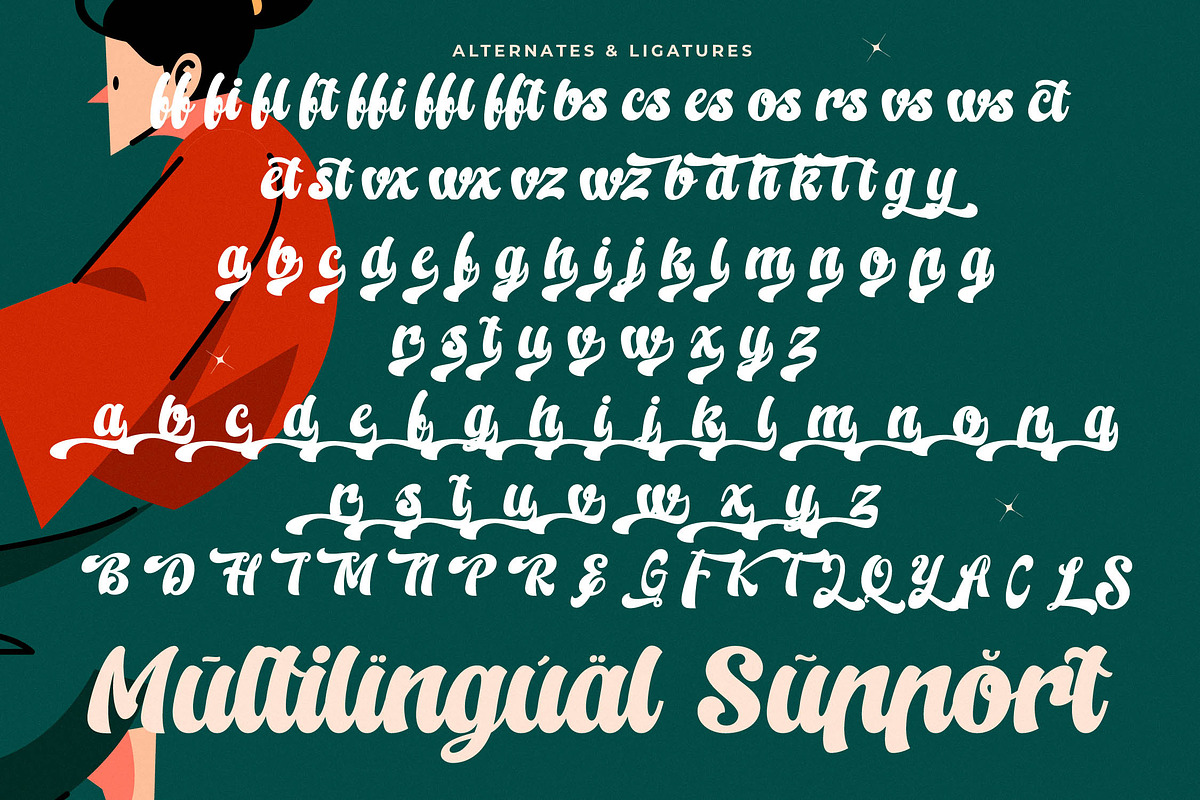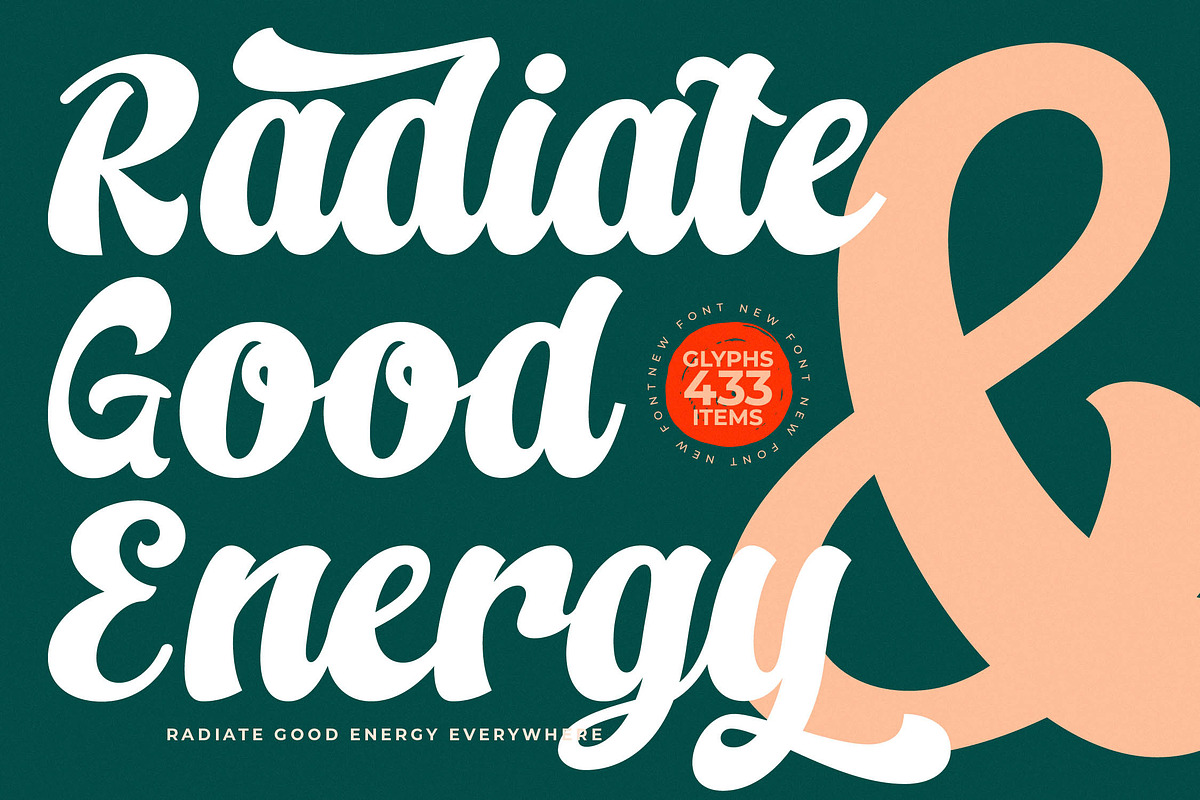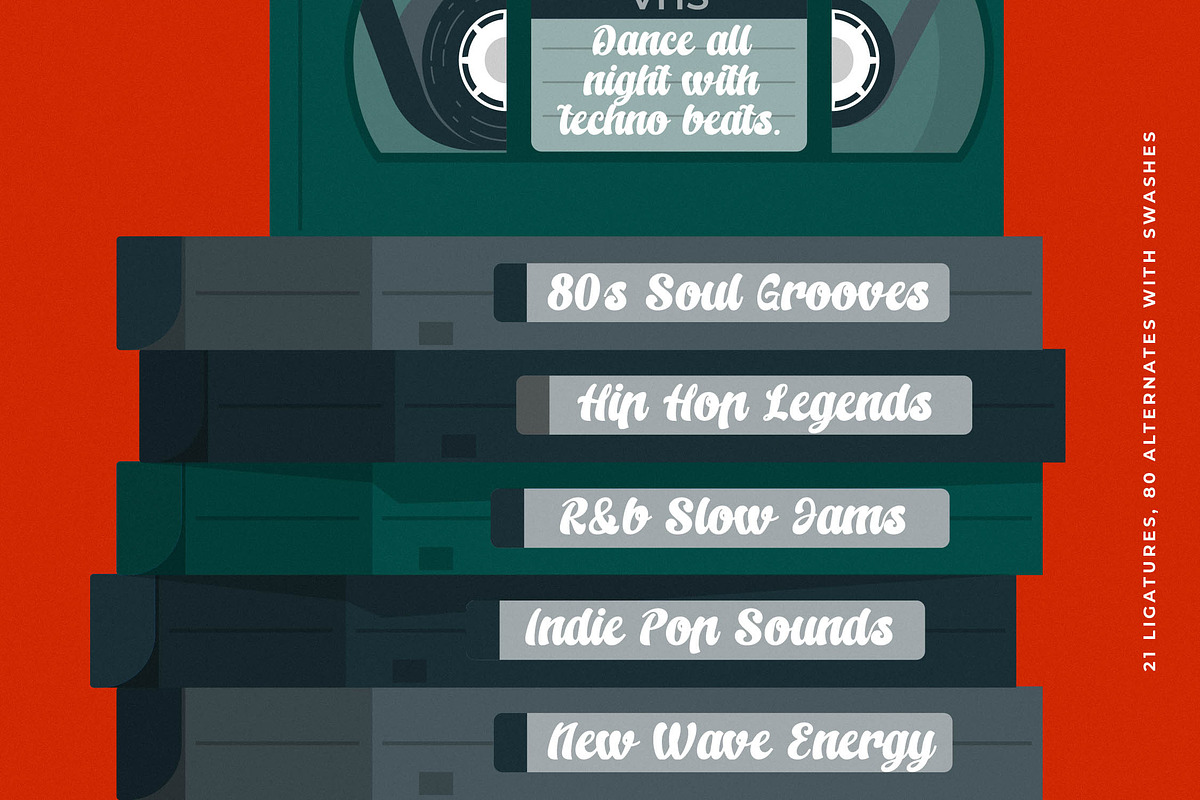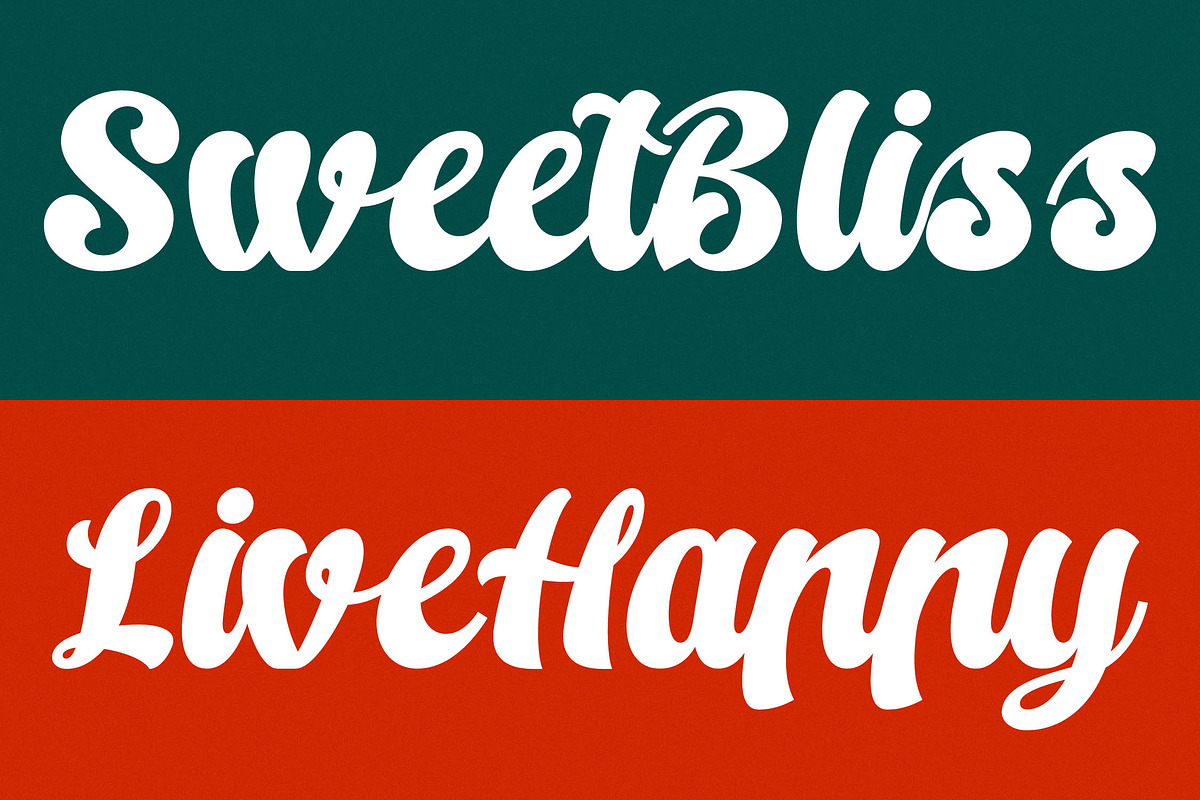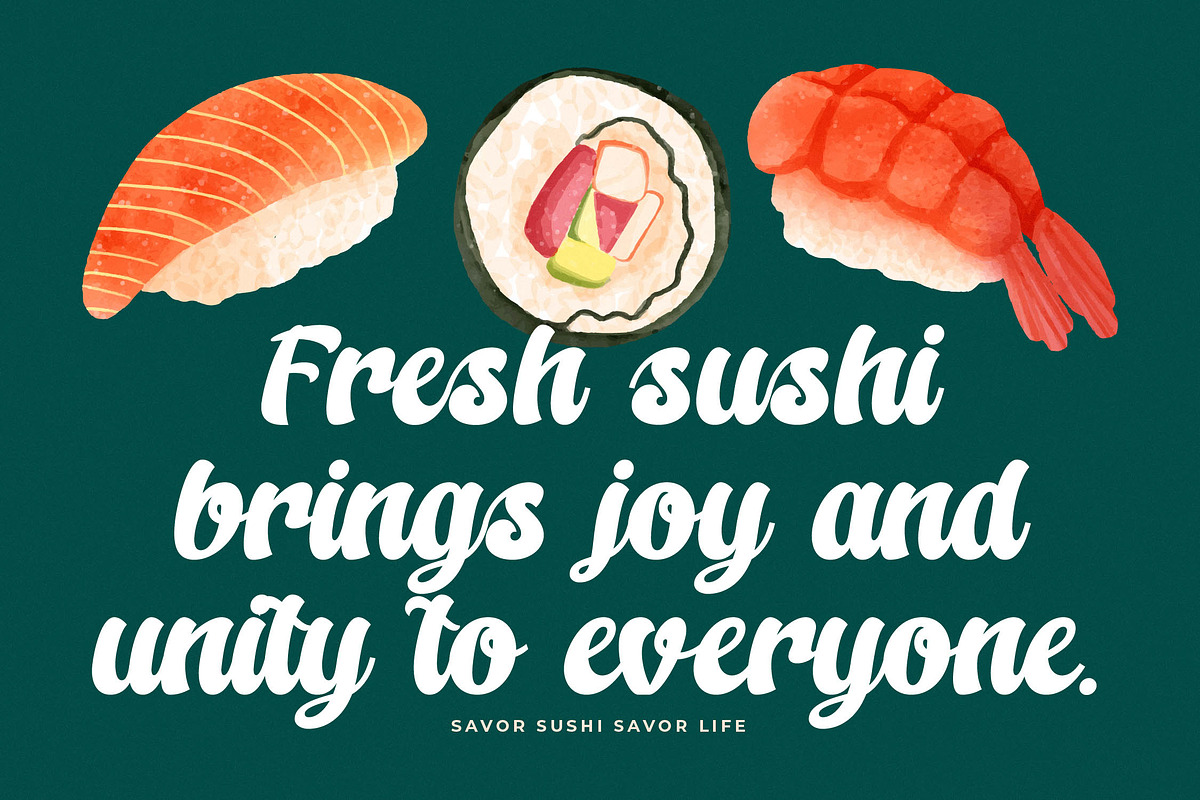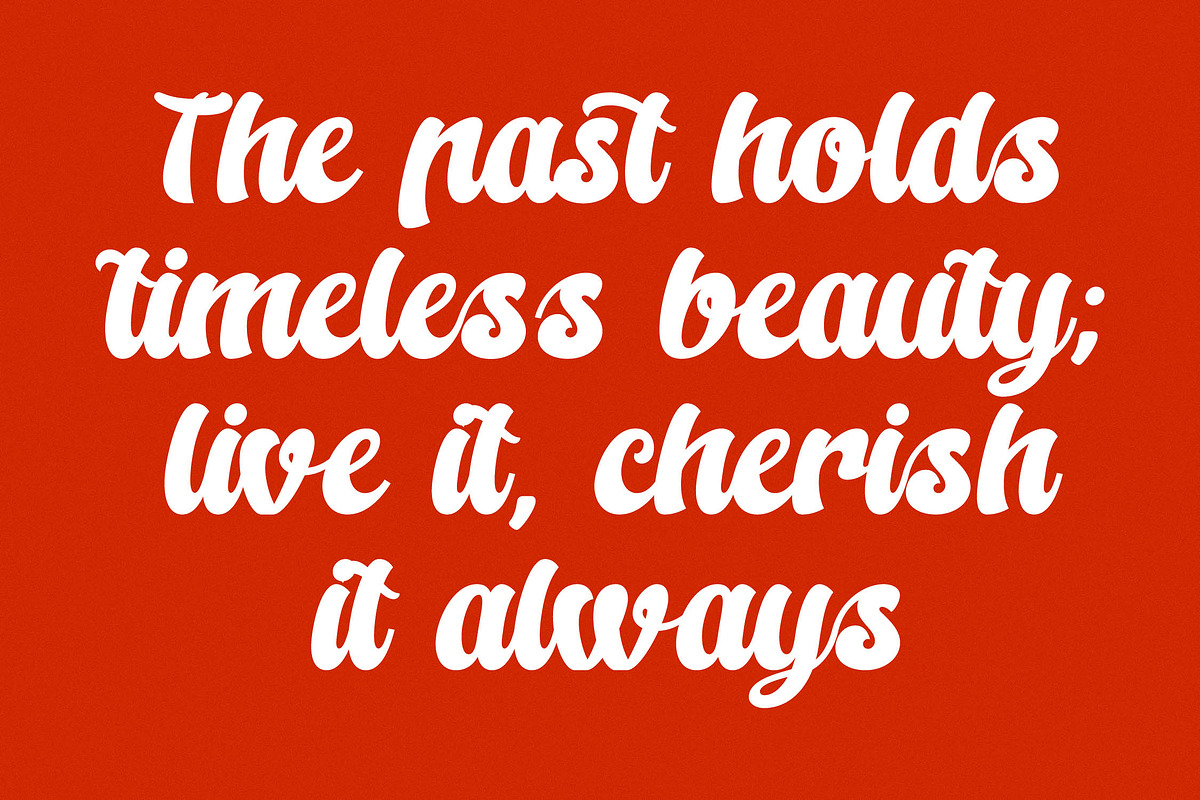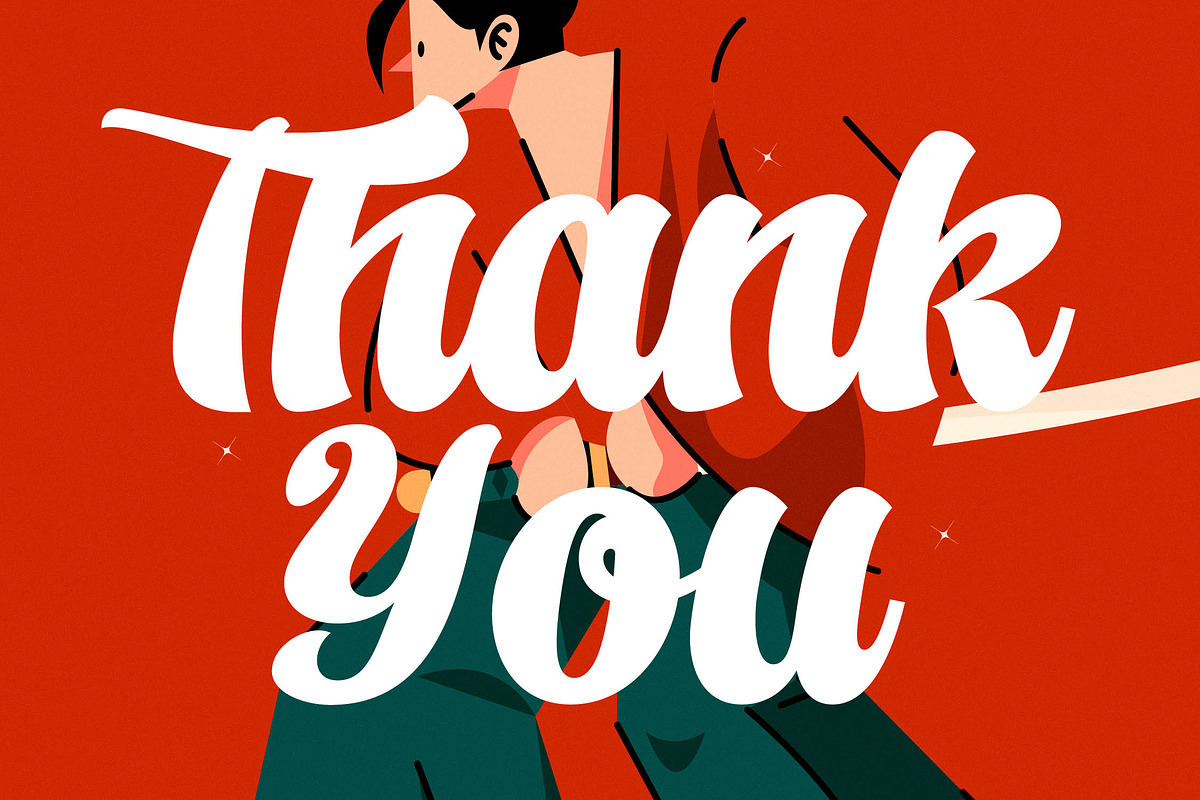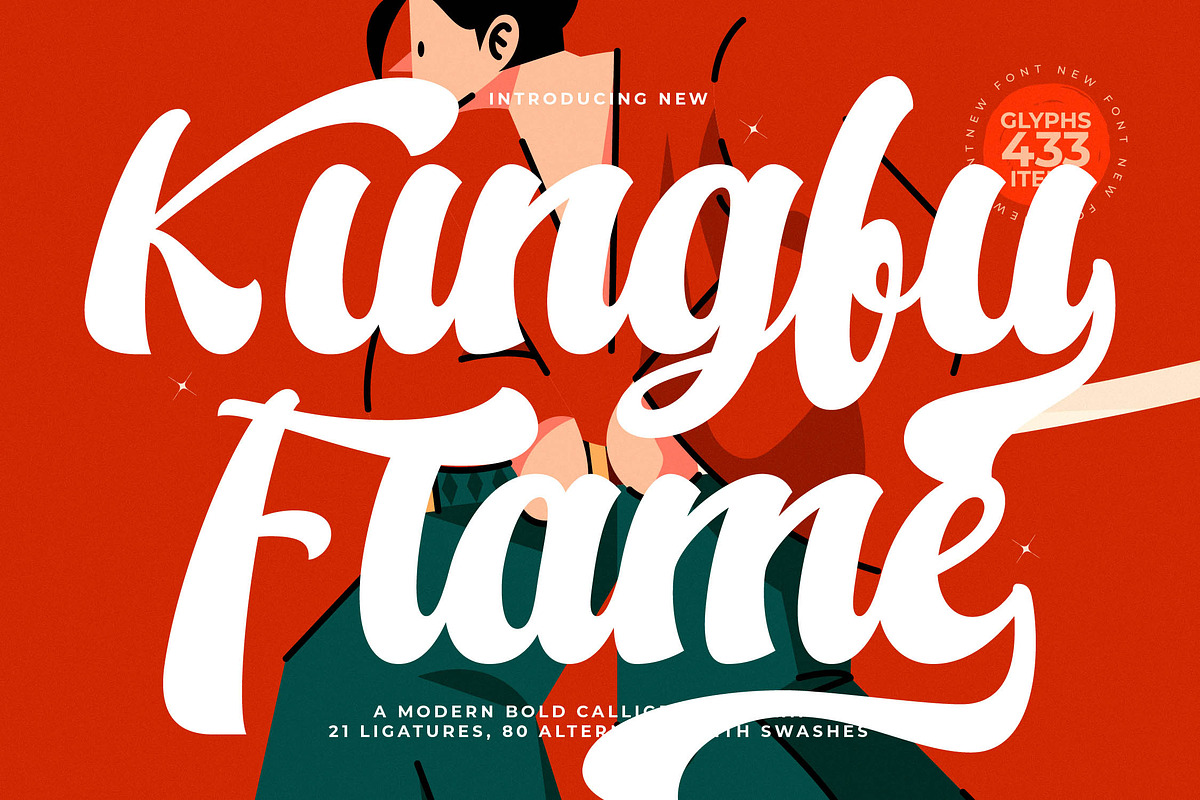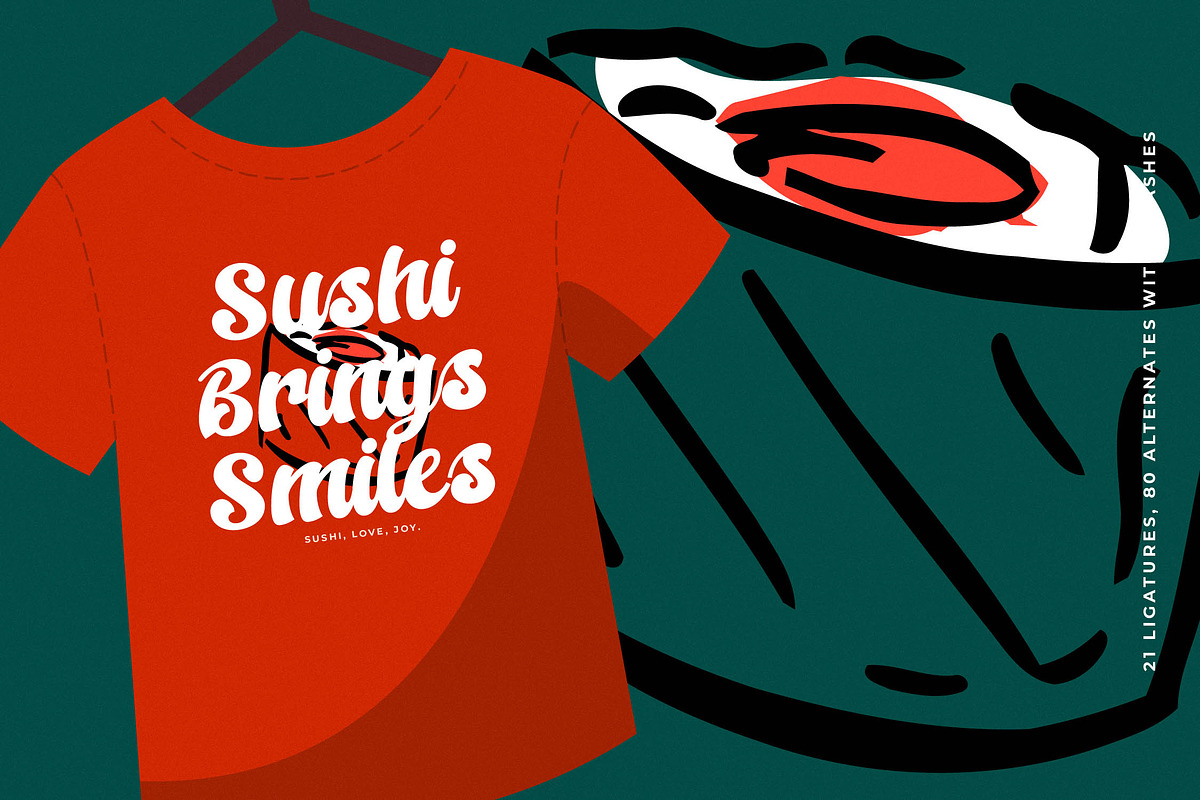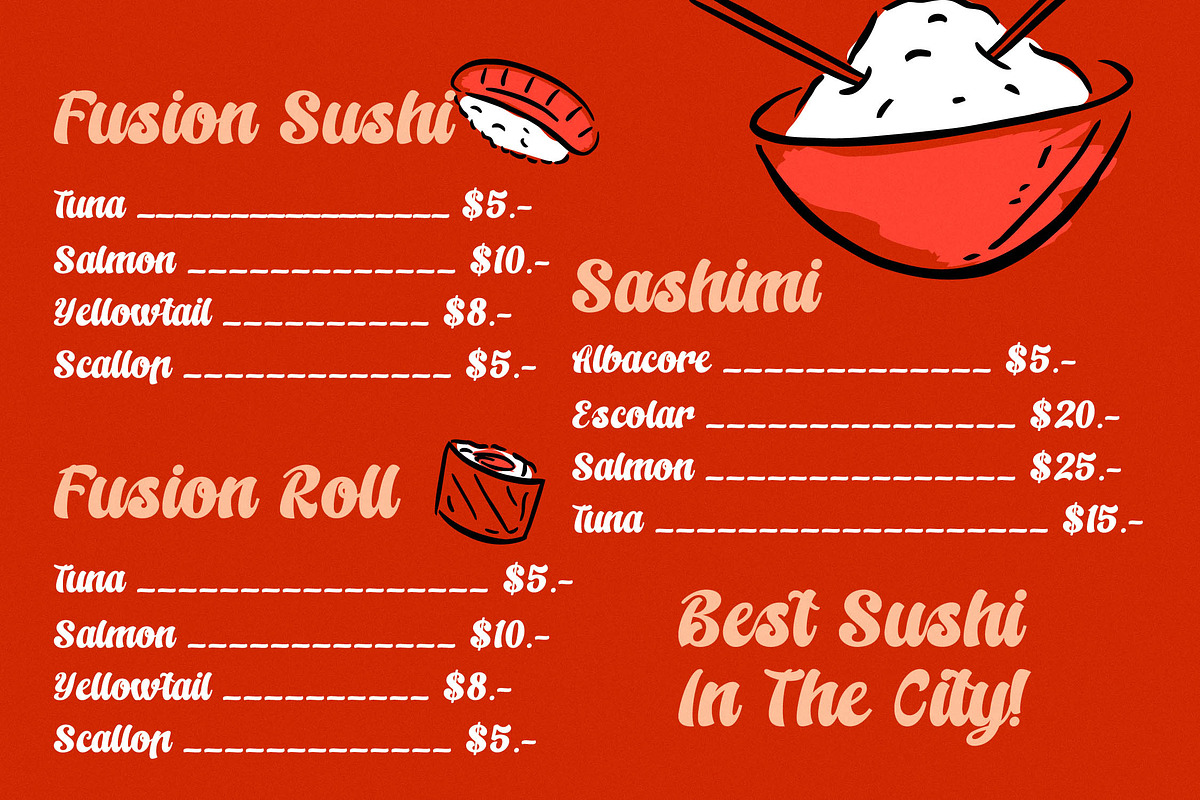
Kungfu Flame Bold Calligraphy
Kungfu Flame is a masterpiece of dynamic motion and bold expression, designed to strike with precision and leave a lasting impression on any canvas. It brings a fiery energy to your typography, blending traditional brush-like flow with contemporary weight.
Inspired by the fluid yet disciplined movements of martial arts, this font captures the essence of a burning flame dancing in the wind. The sharp curves and thick strokes evoke a sense of strength and ancient wisdom reimagined for the digital age.
This modern serif display style is built for maximum branding impact, offering a level of luxury typography that feels both hand-crafted and perfectly polished. As a high-contrast serif alternative, it acts as a premier editorial font for those who demand attention and sophisticated style.
Tapping into the current modern serif trend where personality is paramount, this typeface excels in the realm of character-driven typography. It satisfies the growing demand for editorial display fonts that break away from static designs to offer movement and life.
Perfectly suited for high-impact logo design and bold branding projects, it also thrives in editorial layouts and vibrant packaging for the boutique and food industries. While it commands the room in high-end fashion branding, its unique flair also makes it a standout choice for an unconventional wedding invitation.
This comprehensive package includes a wealth of ligatures and alternates to ensure every word looks unique and custom-made. With elegant swashes and full multilingual support including international characters, it is ready for global creative projects.
- Ligature 21 Alternate 80